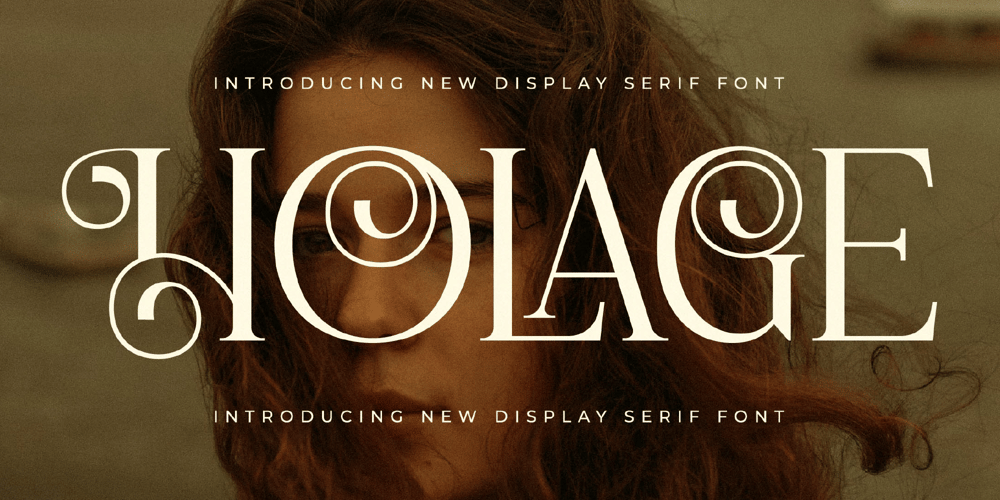
Holage Font Family was designed by Heru Utama Putra and published by Letterena Studios. Holage contains 2 styles and family package options. Holage is a modern and classic serif typeface that has its own uniwque style and modern look. This typeface is perfect for an elegant & luxurious logo, book or movie title design, fashion brand, magazine, clothes, lettering, quotes, and so much more.